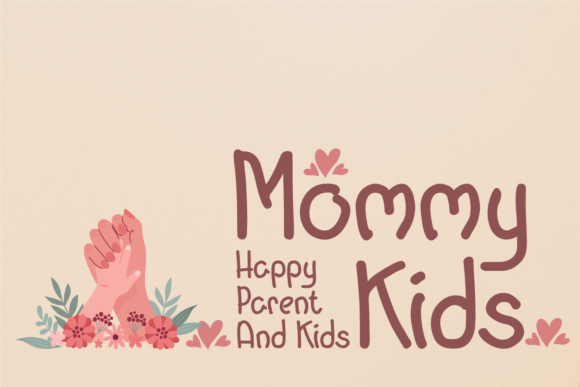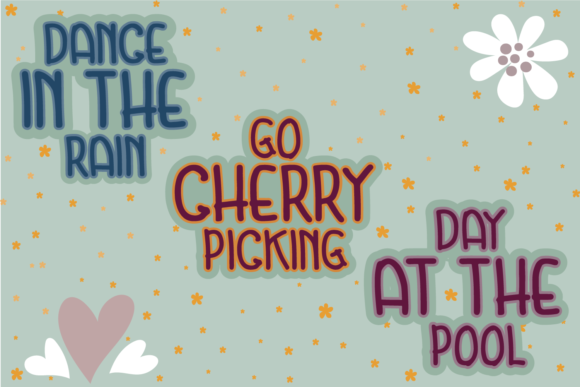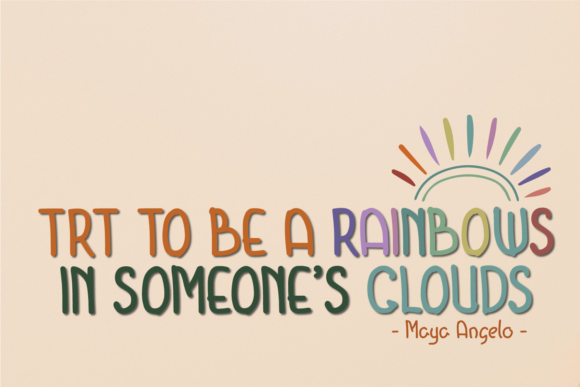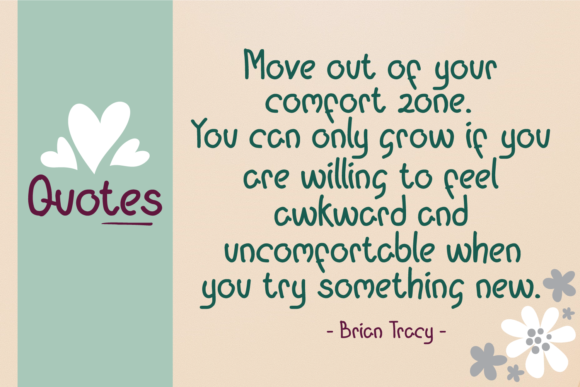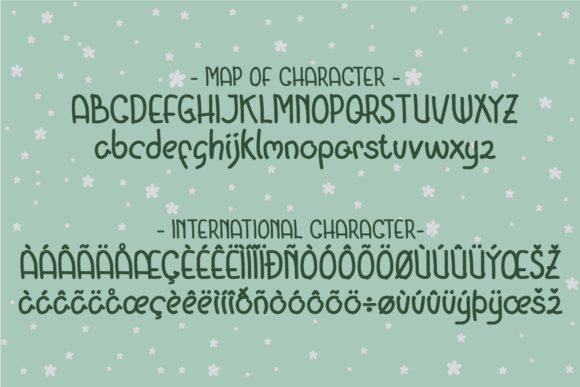
About Peitago Goulya Font
Peitago Goulya is a sweet and friendly handwritten font. Its natural and unique style makes it incredibly fitting to a large pool of designs. The only limit is your imagination!